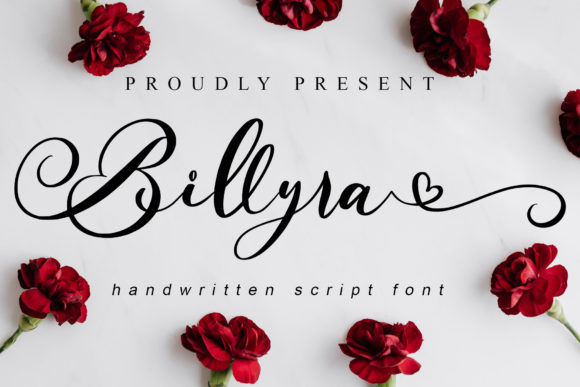
Billyra Font: The Elegant Script for Creative Makers
The mockup on my screen finally felt right. After trying half a dozen different typefaces for my new candle label, the text "Sea Salt & Sage" settled into place with a grace I hadn't seen before. I wasn't just typing anymore; I was writing with a tool that felt personal. This was my first real project with Billyra, a delicate and elegant handwritten font, and the difference was immediate. Its distinct and well-rounded letters gave my simple product name the feeling of a handwritten note, transforming a basic label into something that looked curated and special.
Billyra for Handmade Labels and Packaging Design
When you work with a font like Billyra, you quickly realize its power lies in its versatility. As a Script Handwritten typeface, it carries a warmth that generic fonts lack. For my small shop, this meant applying Billyra to jar labels, product tags, and even the thank-you notes tucked into orders. The font’s elegant flow is perfect for short, impactful phrases like "Handcrafted With Care" or "Limited Batch." Because the letters are so well-rounded and distinct, they remain readable even when printed small on a sticker or etched onto a wooden tag. This readability is crucial for any maker using cutting machines like a Cricut or Silhouette; Billyra’s clean, connected script lines cut beautifully without fragile breaks, making it a reliable Fonts choice for physical merchandise.
Creating Wedding Invitations with Billyra Script Font
Beyond product labels, the natural application for Billyra is in the world of celebration. Designing a suite of wedding invitations with this font feels like you’re offering a custom calligraphy service. The bride’s name, the venue details, the date—all take on a soft, personal elegance. Billyra’s incredibly versatile style allows it to shine as the primary display font for headlines and names, while its consistent weight makes it suitable for body text on welcome boards or itinerary cards. For printable creators, this is a dream; you can design entire digital downloads—from invitations to seating charts—with a cohesive, handmade look that clients adore. Pairing Billyra with a simple, thin serif font for secondary information creates a balanced, professional stationery set that feels both modern and timeless.
Billyra for Seasonal Craft Designs and Printable Wall Art
The change of seasons always brings a fresh wave of creative projects. Whether it’s designing autumnal pumpkin patch signs, festive holiday tags for gift boxes, or spring-themed printable wall art for a digital shop, Billyra adapts. Its personality is delicate enough for a "Merry & Bright" message on a Christmas ornament tag, yet confident enough for a bold "Farmhouse Fresh" statement on a kitchen sign. As a Fonts asset for crafters, this adaptability is key. You’re not buying a one-trick font; you’re investing in a design tool that can span your entire year of creations. When I used Billyra for a set of printable floral wall art quotes, the soft curves of the letters complemented the illustrated blossoms perfectly, creating a digital download that looked like a painted masterpiece rather than a standard text print.
Using Billyra for Boutique Branding and Shop Materials
For any handmade seller, branding is everything. Your font choice is a silent ambassador for your shop’s quality and style. Integrating Billyra into your logo, social media graphics, and packaging creates a recognizable thread of elegance that customers remember. This Script Handwritten font conveys care and attention to detail. Using it consistently on your Etsy shop banner, Instagram story templates, and even the text on your product photography mockups builds a cohesive brand identity. It tells a story before a customer even reads your description. Because Billyra is so distinct, it helps your shop materials stand out in a crowded marketplace, suggesting a premium, personal touch that resonates with buyers looking for something special.
Font Pairing and Practical Design Tips for Billyra
To make Billyra truly shine in your projects, consider its partners. While it’s stunning on its own, pairing it with a clean, minimalist sans-serif font for practical information (like pricing, materials, or instructions) creates a perfect hierarchy. This keeps your designs readable and professional. For longer text blocks on things like product story cards or planner pages, use Billyra sparingly for titles and headers, and rely on a more neutral font for the body. This maintains the elegant impact without sacrificing clarity. Before using any font for commercial products, always check its licensing. A font like Billyra, with its clear commercial-use intent, is a safe foundation for selling physical items, digital templates, and printables. Also, explore any included stylistic alternates or ligatures; these can add even more unique flair to names or special words, making your designs feel utterly custom.
Billyra on Physical Merchandise: Mugs, Totes, and Apparel
Taking Billyra from the screen to a physical object is where the magic truly happens. Imagine a simple cotton tote bag with the word "Market" written across it in this elegant script. Or a ceramic mug bearing a cozy "Morning Coffee" message. The font’s rounded, full-bodied letters translate beautifully to embroidery, vinyl heat transfer, or direct printing. They fill space with a friendly warmth, avoiding the sharp, thin lines that can feel cold on merchandise. For a crafter, this opens up endless product possibilities. The key is to test your sizing. Billyra’s delicate nature means it needs adequate space to express its details; on a small sticker or pin, use it for a single word or a short name to ensure its masterpiece qualities are visible and intact.
Ultimately, Billyra is more than just a font file. It’s a creative partner for anyone who makes, sells, or designs. Its incredibly versatile style means it never feels out of place, whether you’re crafting the most formal wedding invitation or the most whimsical birthday card. From your first label mockup to your final packaged product, Billyra brings a consistent thread of handwritten elegance that elevates everything it touches. It’s the detail that turns a simple creation into something spectacular, and for a maker, that detail is everything.